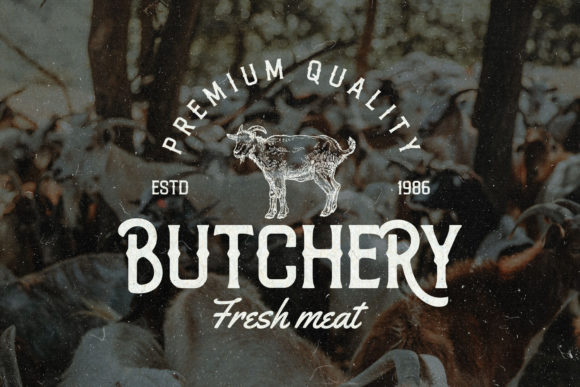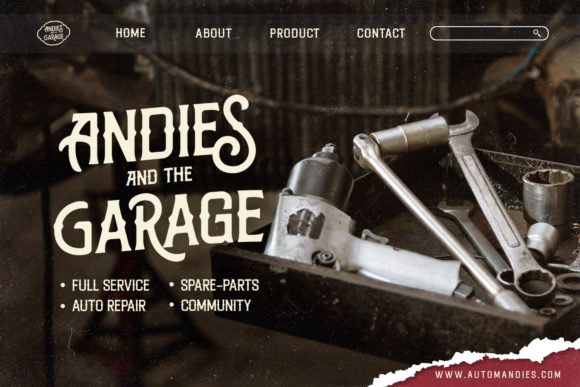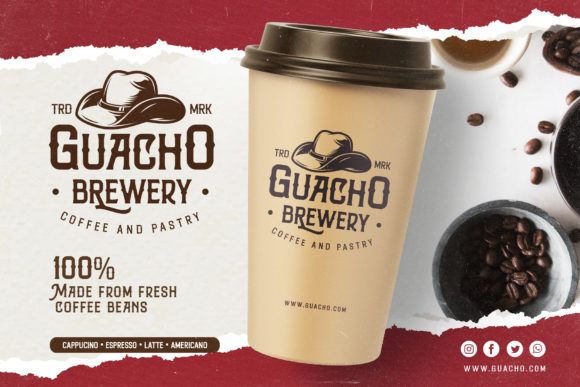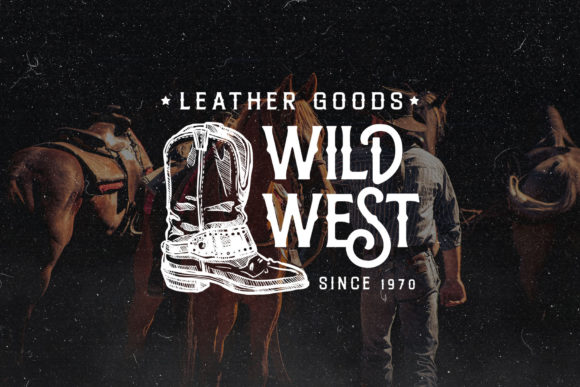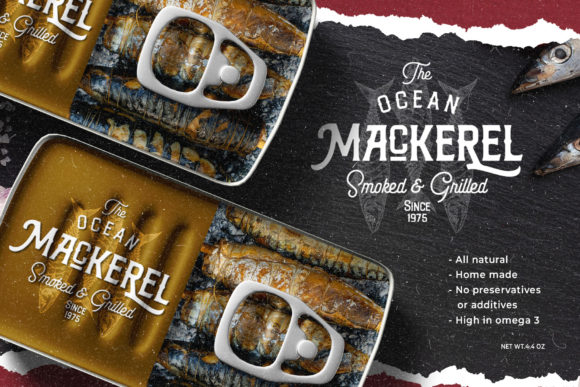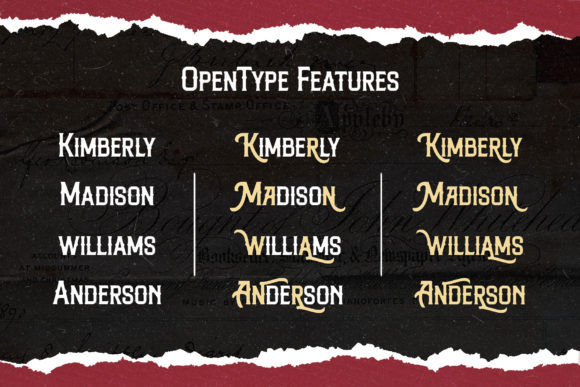
Introduction to Marones Font Font
Fonts play a crucial role in design, and the Marones Font font is a typeface that brings both character and versatility to any project. Whether you’re working on a branding project, a website, or a print design, the Marones Font font offers a unique style that can elevate your work.
Marones is a display font with inky effect and spurs on the letterforms.
Inspired by the old school garage and vintage logo, Marones has a strong look so thatβs perfect for any display such as packaging, bottle, headline, logo, apparel, posters, stickers, craft projects, and more This font is PUA encoded which means you can access all of the glyphs and swashes with ease.
The Marones Font font is more than just a typeface β it’s a design tool that helps you communicate your message with style and clarity. Its unique character set and versatile design make it suitable for a wide range of applications, from elegant invitations to bold headlines.
With its carefully crafted letterforms and balanced proportions, the Marones Font font ensures readability and visual appeal across all mediums.
The Marones Font font stands out with its unique design, exceptional readability, and versatility across various design applications.